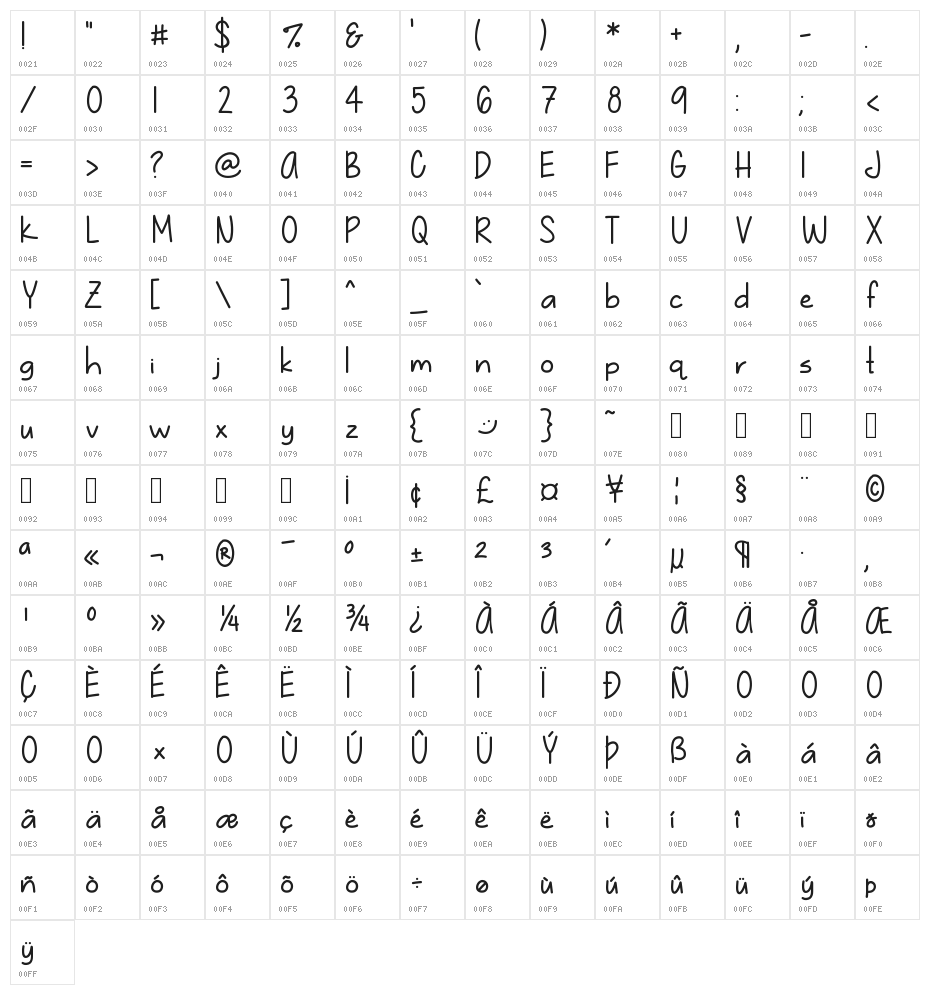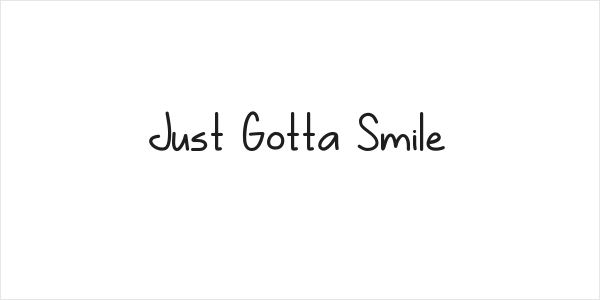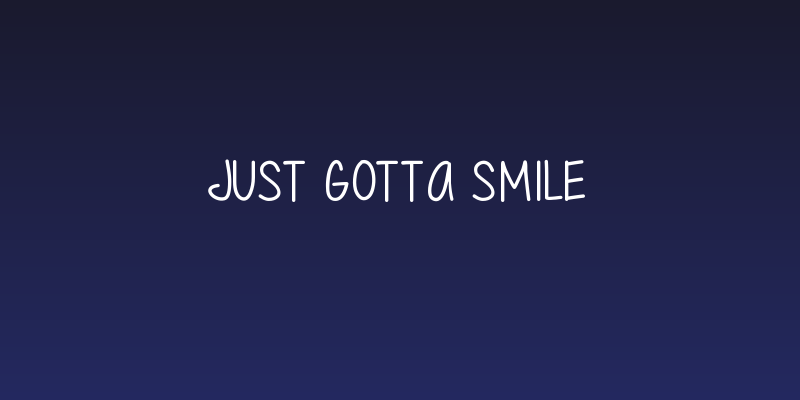
Just Gotta Smile Font
Just Gotta Smile Description
This playful and casual font features a handwritten style with smooth, rounded edges and a friendly appearance. The letters are slightly tilted, adding a whimsical touch to the overall design. The uppercase and lowercase characters maintain a consistent flow, while the numerals and special characters complement the alphabet with similar curves and strokes. The font exudes a sense of fun and approachability, making it ideal for projects that require a personal and informal touch.
| Use Case | Logos, Headlines, Informal Text |
| Proposed Projects | Ideal for children's books, greeting cards, playful branding, and casual invitations. |